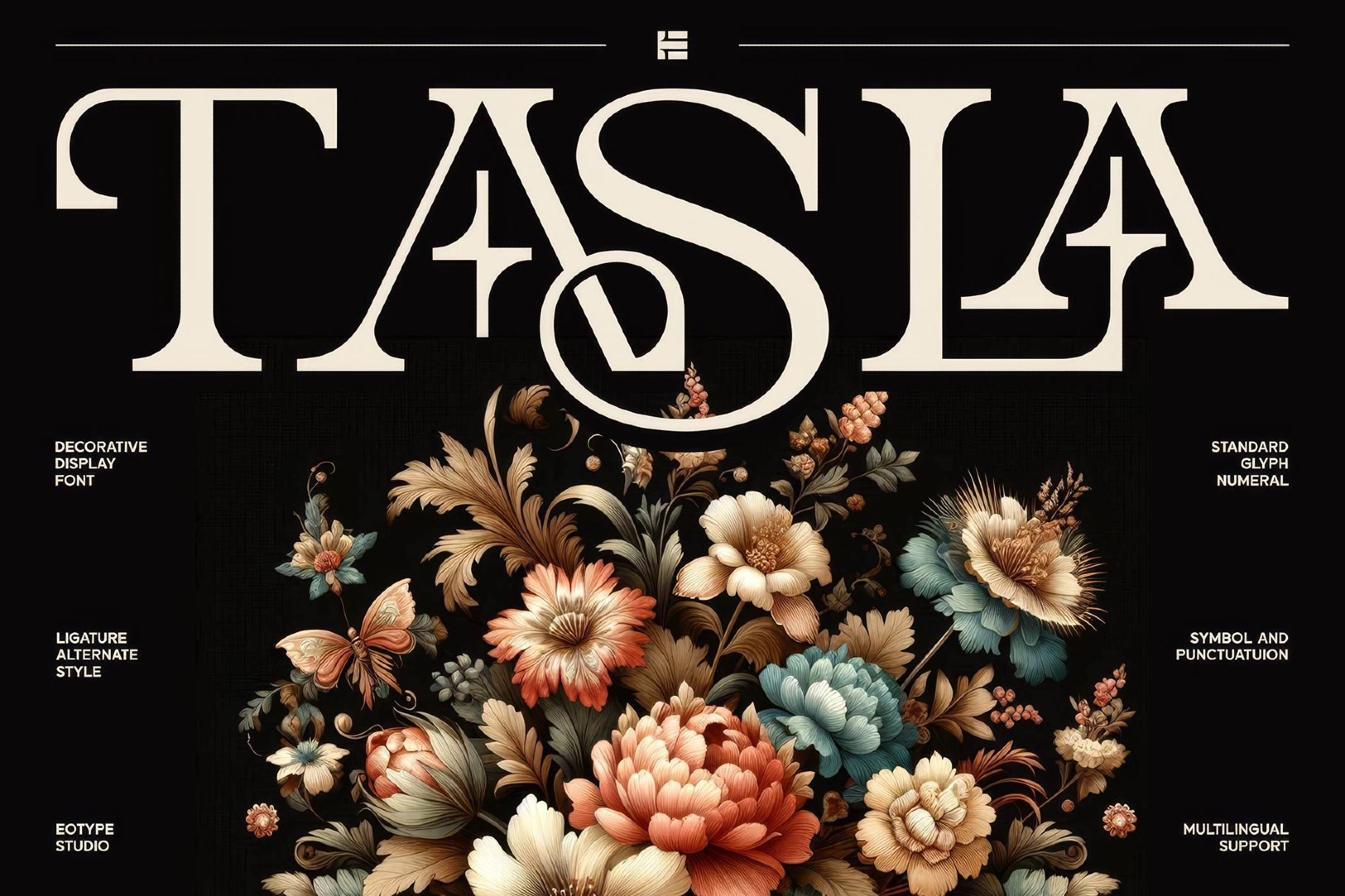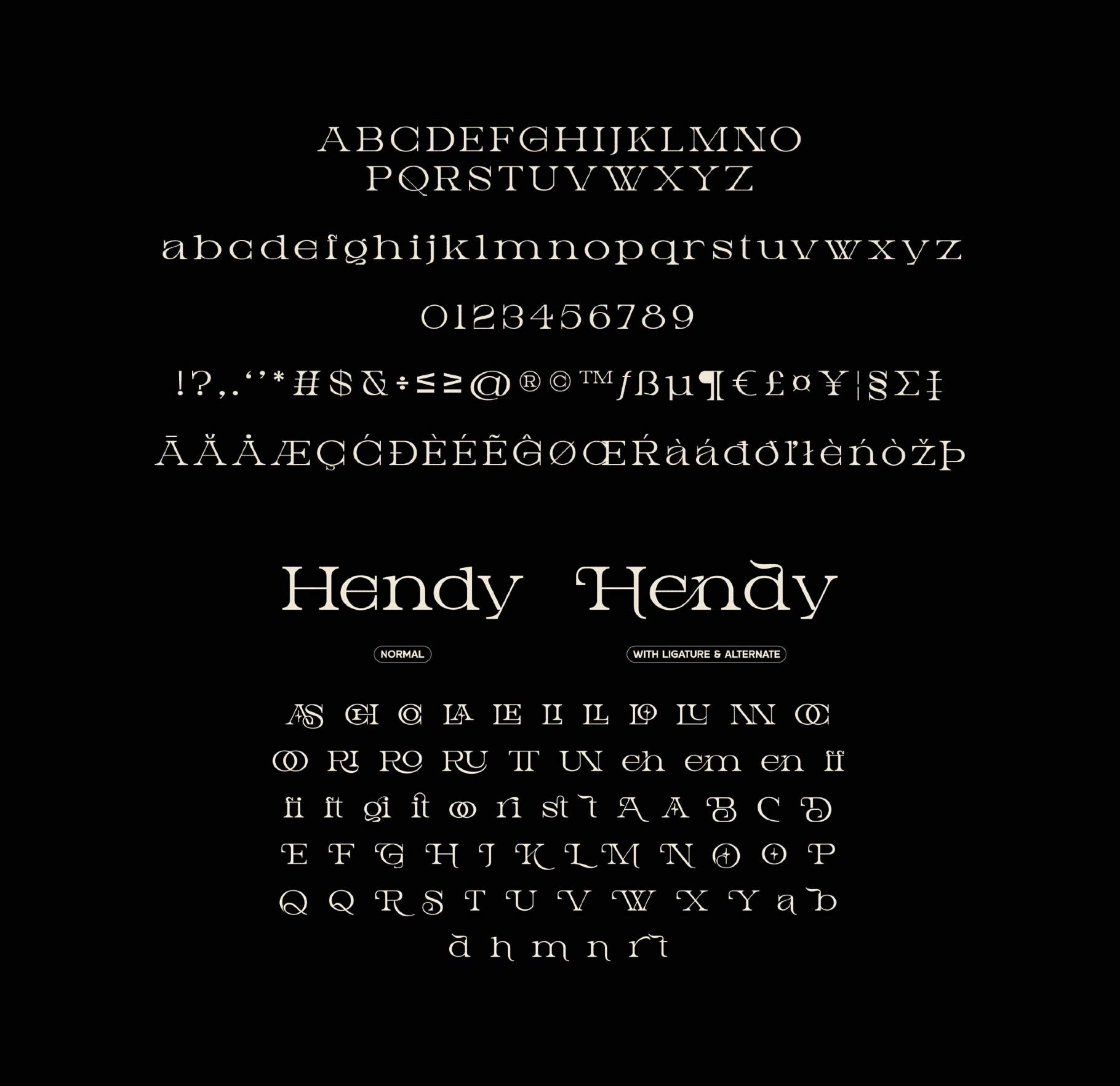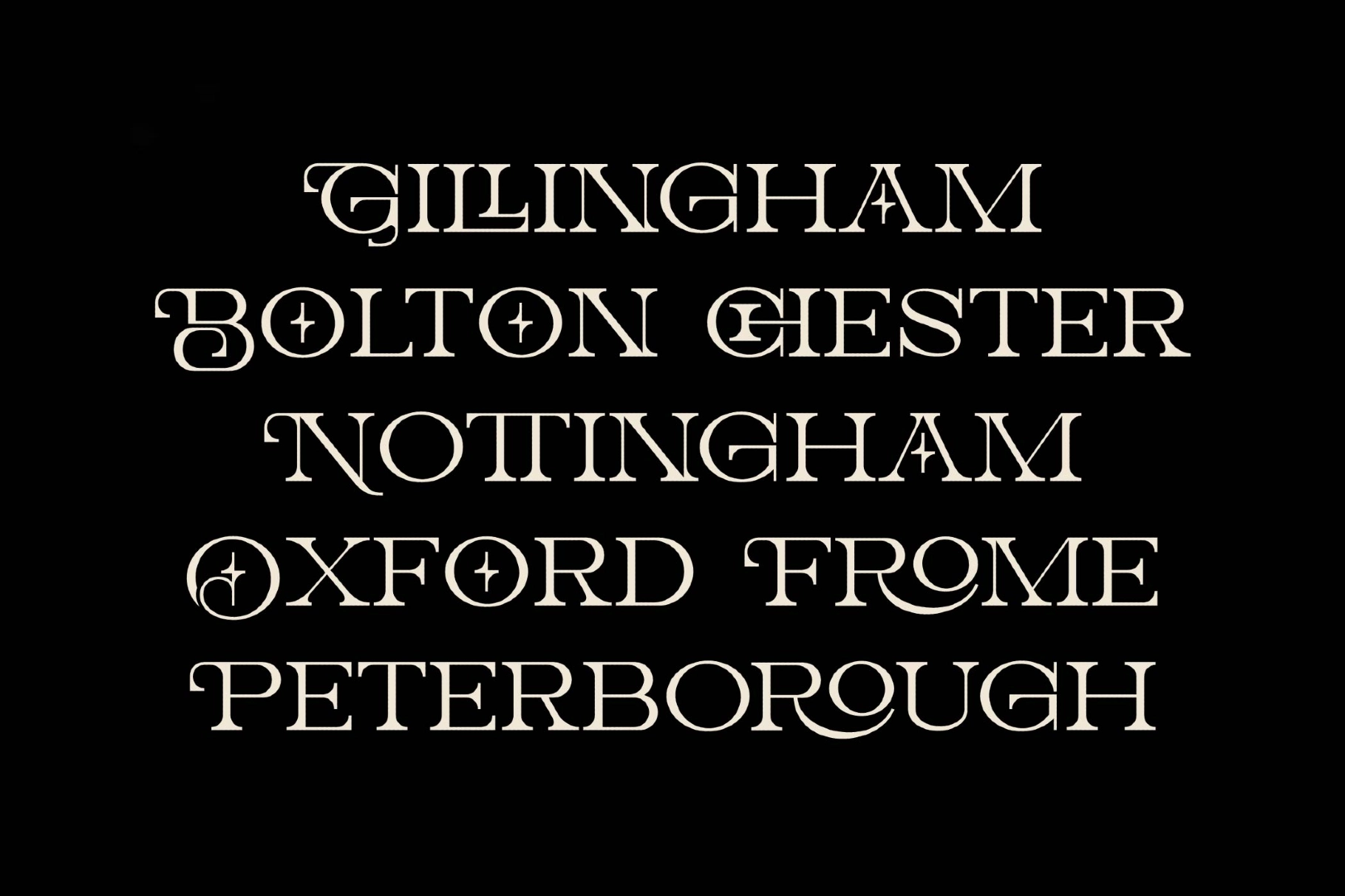
Tasla - Vintage Decorative Serif Font
Tasla builds on a high-contrast serif skeleton with ornate, curling details at the terminals — bracketed serifs that flare and twist instead of sitting flat, giving each letter a hand-engraved quality. The look leans Victorian and Art Nouveau, all curling flourishes and dramatic thick-thin contrast, making this a vintage decorative serif built for headlines and short display lines.
Discretionary ligatures swap in connected, ornamental forms for select letter pairs, adding an artisan touch to logotypes and monograms without extra manual kerning. Use it for branding, packaging labels, poster titles, wine and spirits labels, wedding stationery, magazine mastheads, and retro-inspired editorial layouts.
• uppercase & lowercase;
• numerals, punctuation & symbols;
• discretionary ligatures & alternate letterforms;